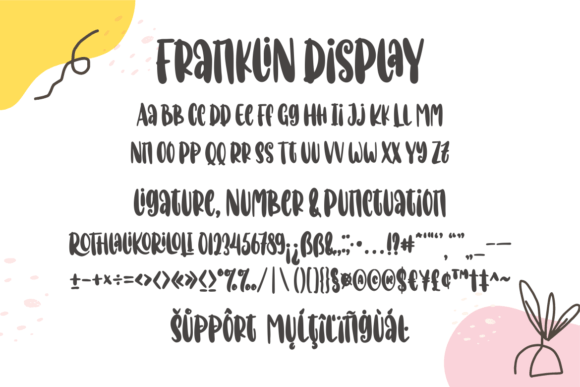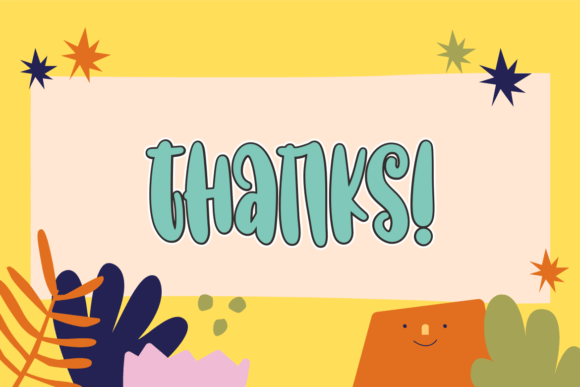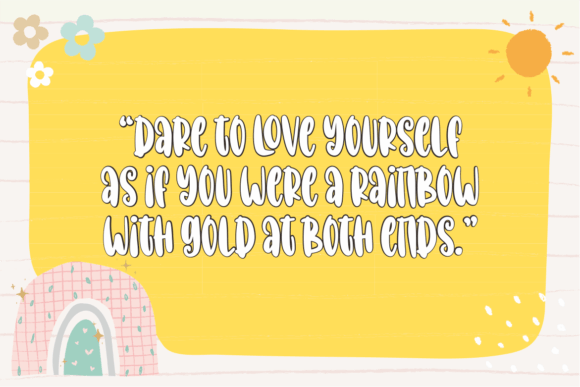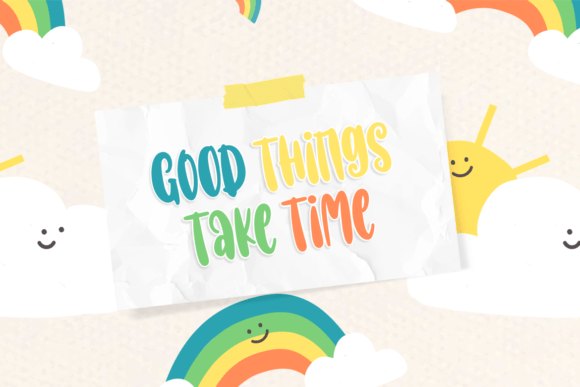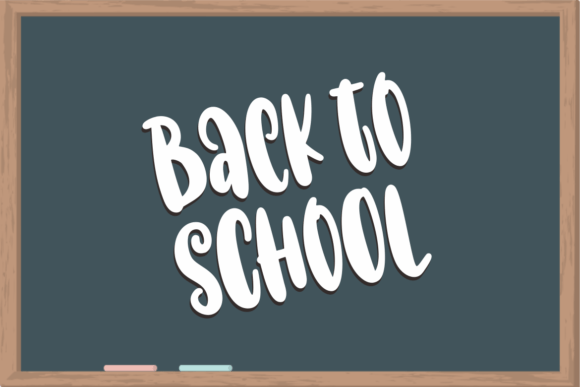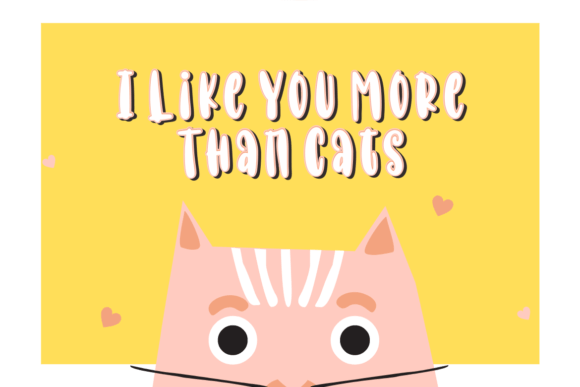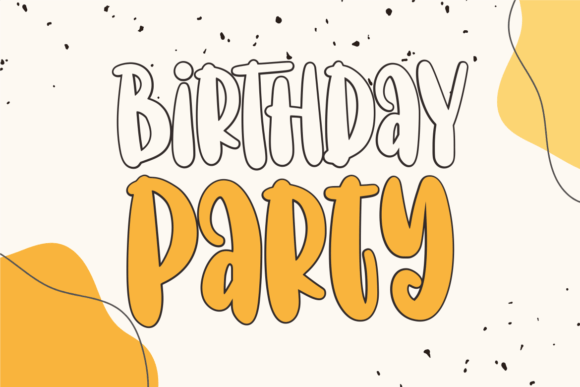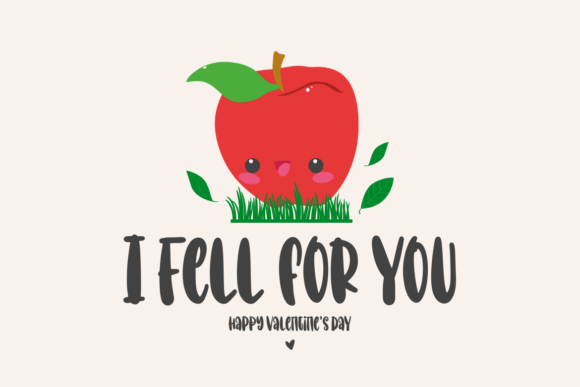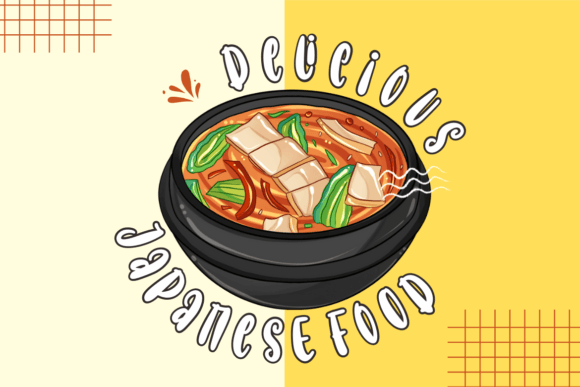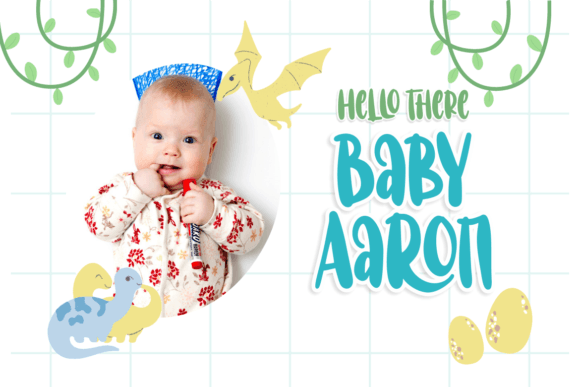
Franklin Display Font
About Franklin Display Font
“Franklin Display” is not just a font; it’s a playful and friendly handwritten display typeface designed to bring a touch of happiness to your creations. With its whimsical and approachable qualities, this font is suitable for a wide spectrum of applications, from greeting cards to headlines.
The playful and friendly vibe of “Franklin Display” is immediately apparent in its handwritten display design. Each letter is crafted with a sense of whimsy, contributing to an overall aesthetic that is both cheerful and inviting. This makes it an ideal choice for projects that demand a font with a playful and friendly appeal.
The versatility of “Franklin Display” becomes evident in its adaptability to various design contexts. Whether used in greeting cards to add a touch of happiness or in headlines to create a visually engaging impact, this font confidently fits into a diverse range of creative projects.
Imagine “Franklin Display” gracing social media posts, where its friendly display script adds a warm and approachable feel. Picture it in digital graphics or product packaging, creating a visually delightful and cheerful atmosphere. “Franklin Display” becomes a font that not only looks playful but also enhances the overall visual appeal of your designs.
In summary, “Franklin Display” is not just a font; it’s a design asset that brings a playful and friendly touch to your creative projects. Let it be the choice for adding happiness to your greeting cards, headlines, and more. With “Franklin Display,” every project becomes an opportunity to showcase the beauty of handwritten display typography with a cheerful and inviting twist.